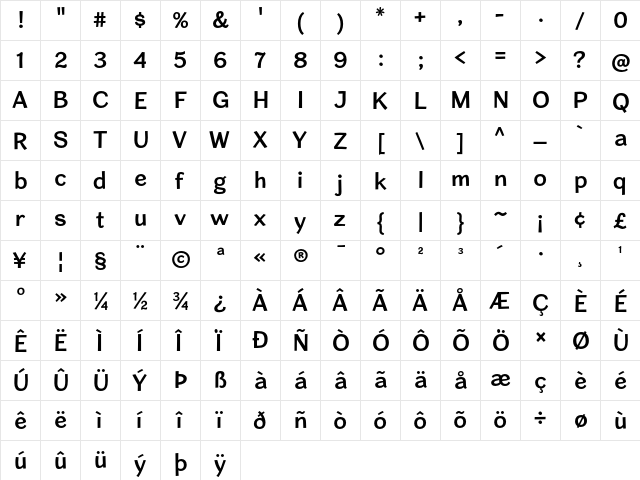
Cardigan SemiBold
Design Context for Cardigan Typeface
Cardigan takes a measured approach to typography — its balanced proportions and neutral character make it a reliable workhorse for both digital and print work. Its bold stroke weight gives it real presence on the page.
Pro Tip: Pair Cardigan with a font of contrasting weight or personality to build a more expressive typographic hierarchy.